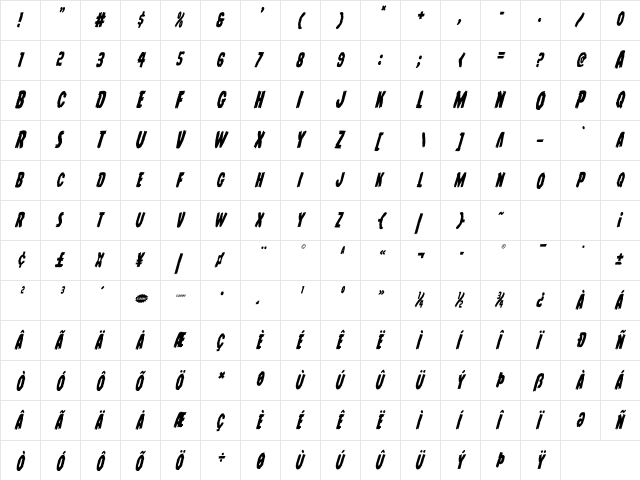
Young Frankenstein Condensed Italic Font Preview
Design Context for Young Frankenstein Condensed Italic Typeface
Young Frankenstein Condensed Italic offers clean, dependable letterforms without strong stylistic allegiance, making it a practical choice for designers who need flexibility. The slanted form adds forward momentum and visual energy. The condensed width makes it efficient for tight spaces without sacrificing legibility.